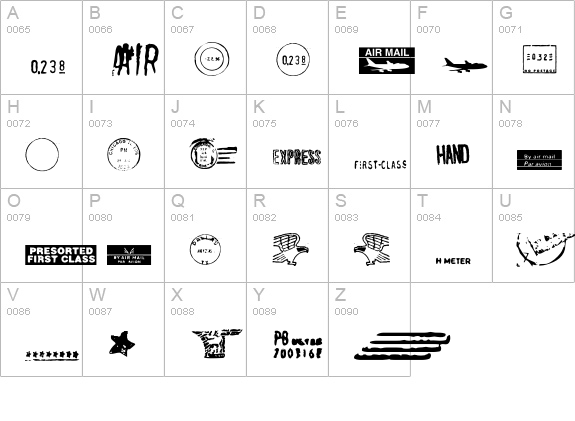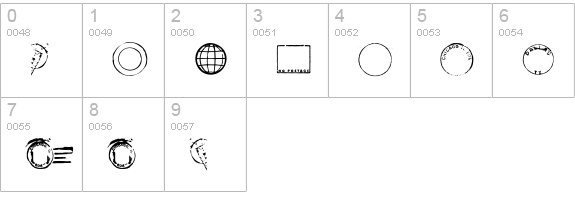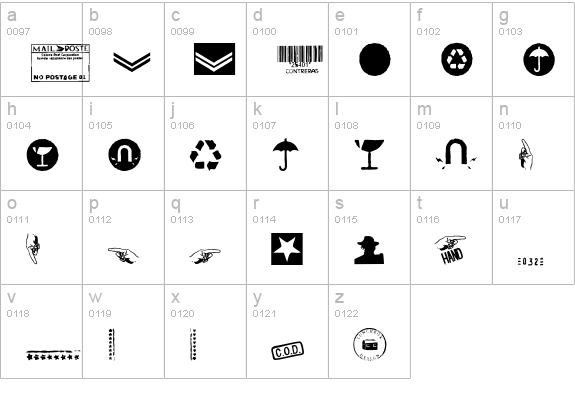
AirMail-Postage Font Details
The AirMail-Postage font is a charming and vintage-inspired typeface that evokes the classic look of postage stamps. Its unique design features elegant lines and intricate details that give it a nostalgic feel. Perfect for adding a touch of old-world charm to your designs, this font is versatile and eye-catching. Best of all, AirMail-Postage is available for free download at FontsMarket.com. Whether you're working on a vintage-themed project, creating a stunning logo, or designing eye-catching posters, this font is sure to make a statement. Download AirMail-Postage today and add a touch of timeless elegance to your designs.